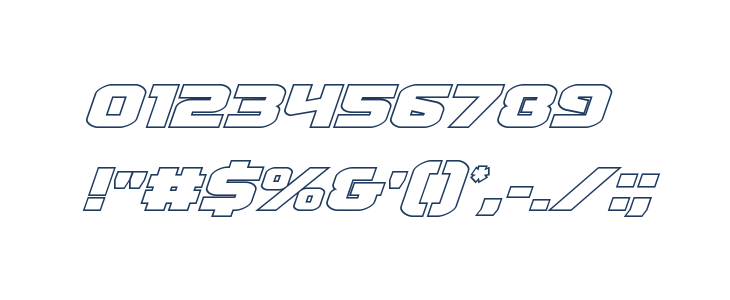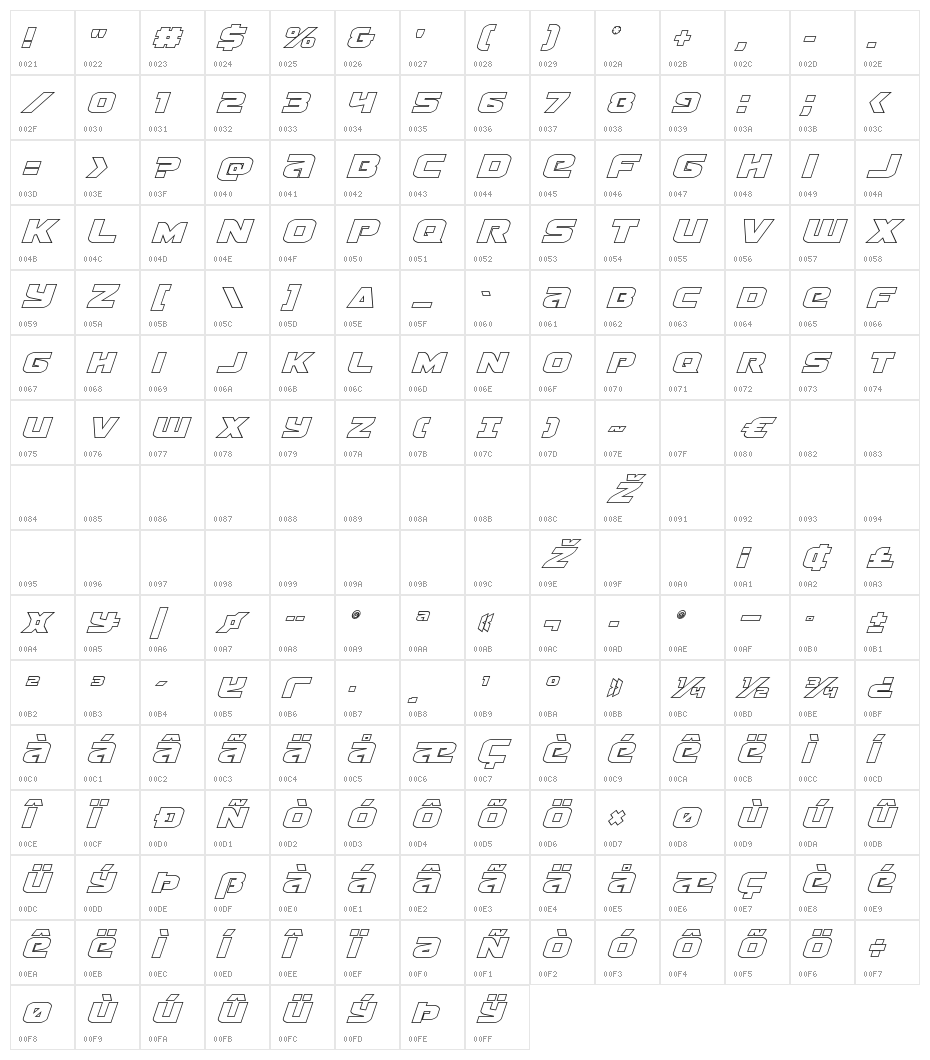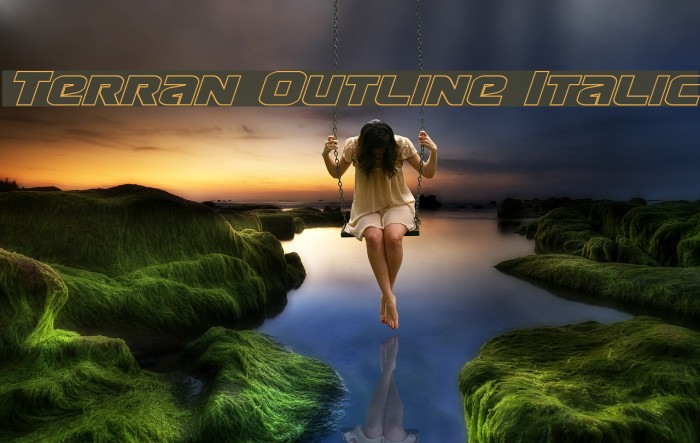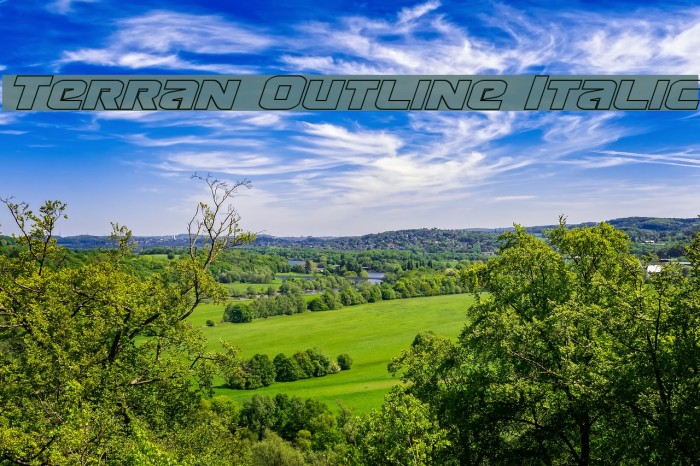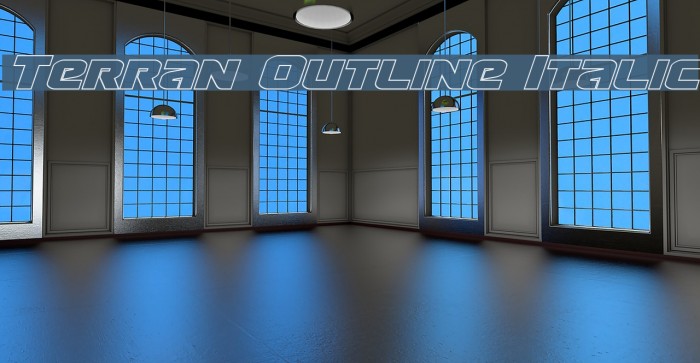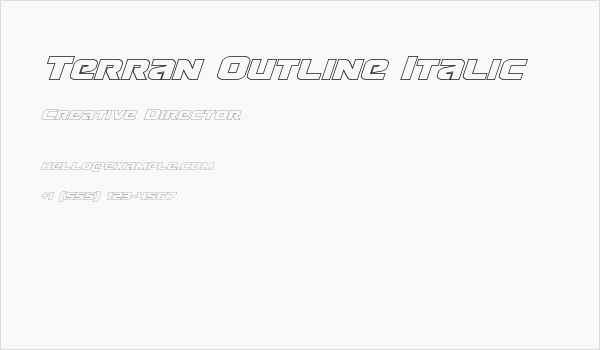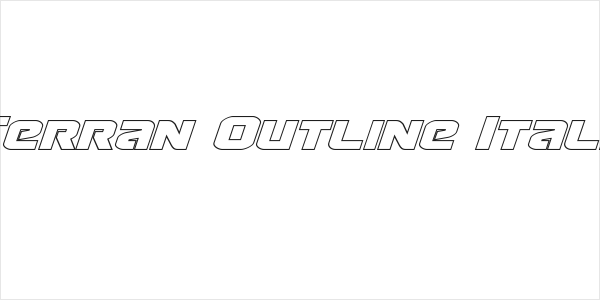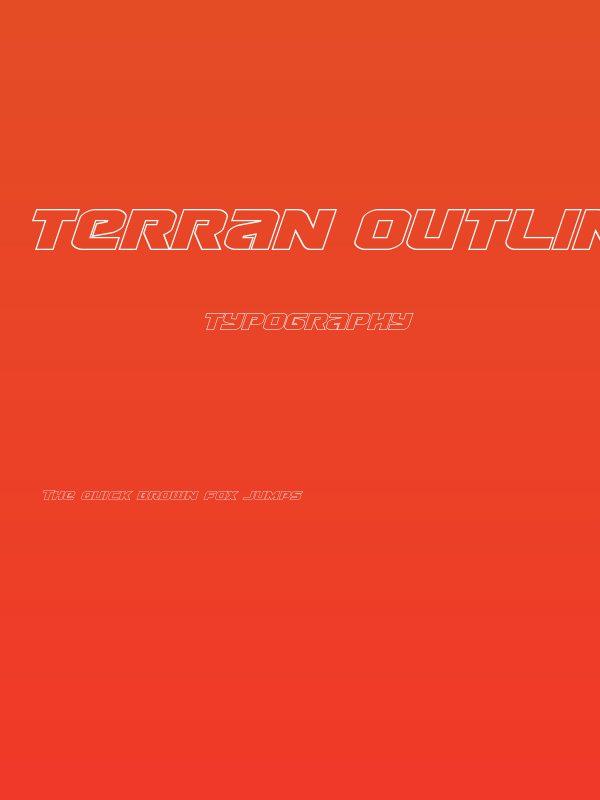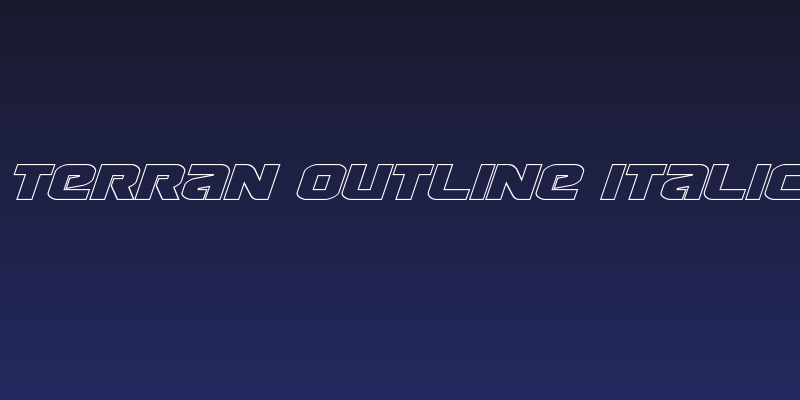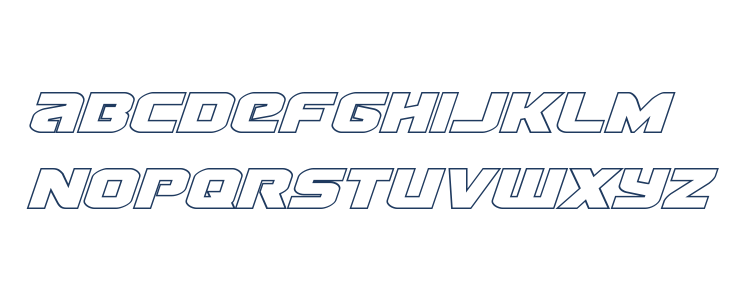
Terran Outline Italic Font
Terran Outline Italic Description
This font features a modern and sleek outline style with an italic slant, giving it a dynamic and futuristic appearance. The characters are bold and geometric, with sharp angles and clean lines that create a sense of movement and energy. The outline design adds a unique touch, making the font stand out while maintaining readability. It is well-suited for projects that require a contemporary and edgy look, such as technology branding, sports team logos, or sci-fi themed designs. The consistent stroke width and spacing ensure clarity and legibility across various applications.
| Use Case | Logos, Headlines |
| Proposed Projects | Ideal for technology branding, sports logos, and sci-fi themed designs. |